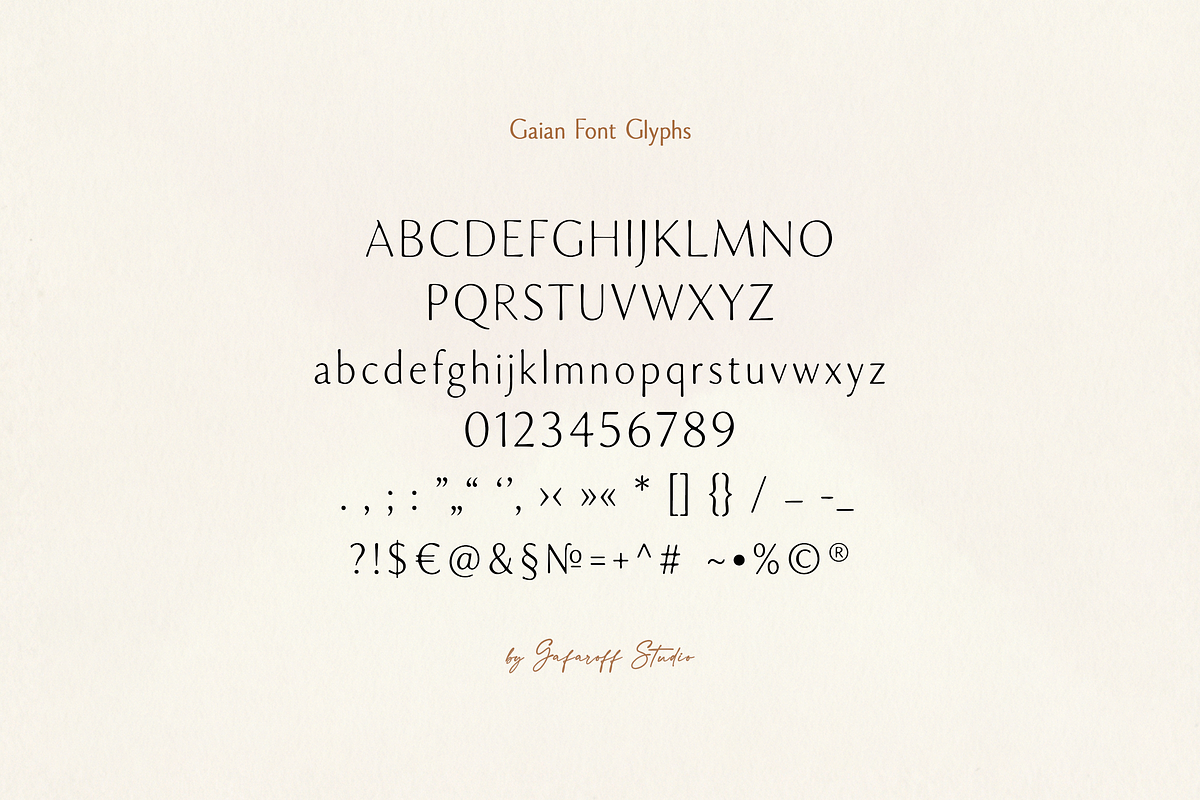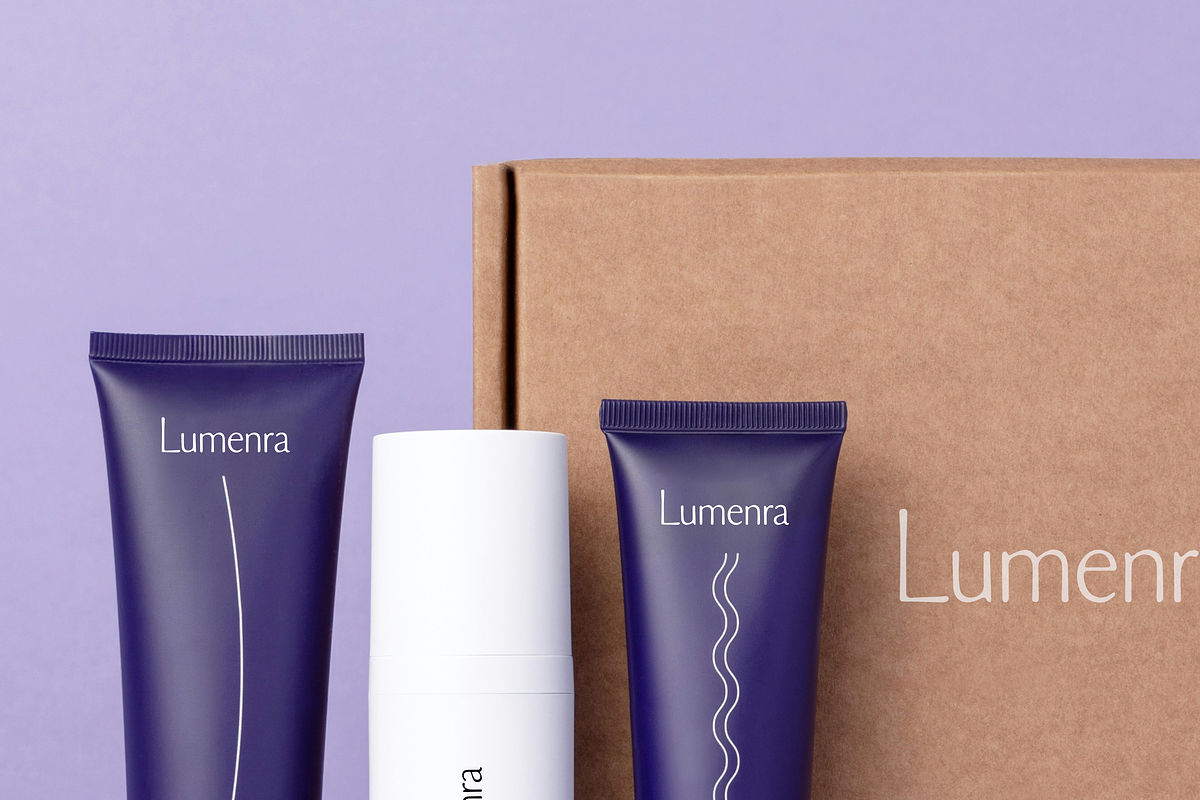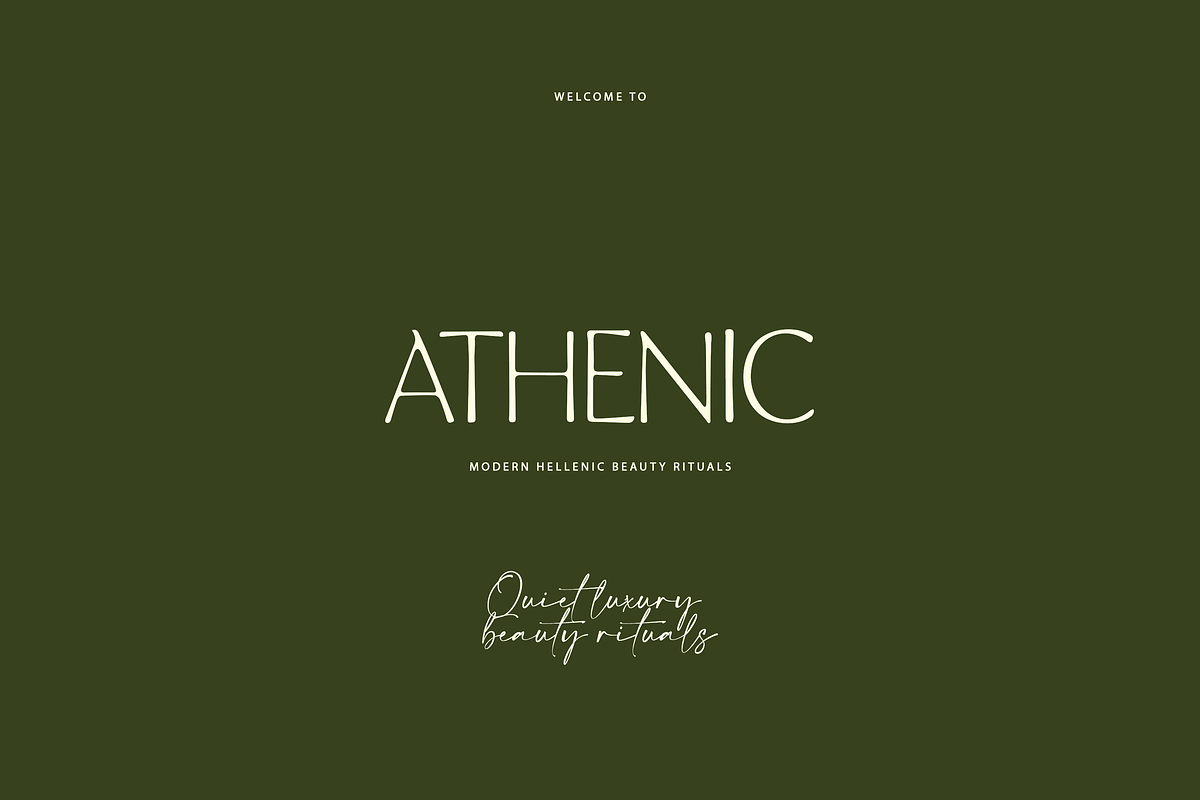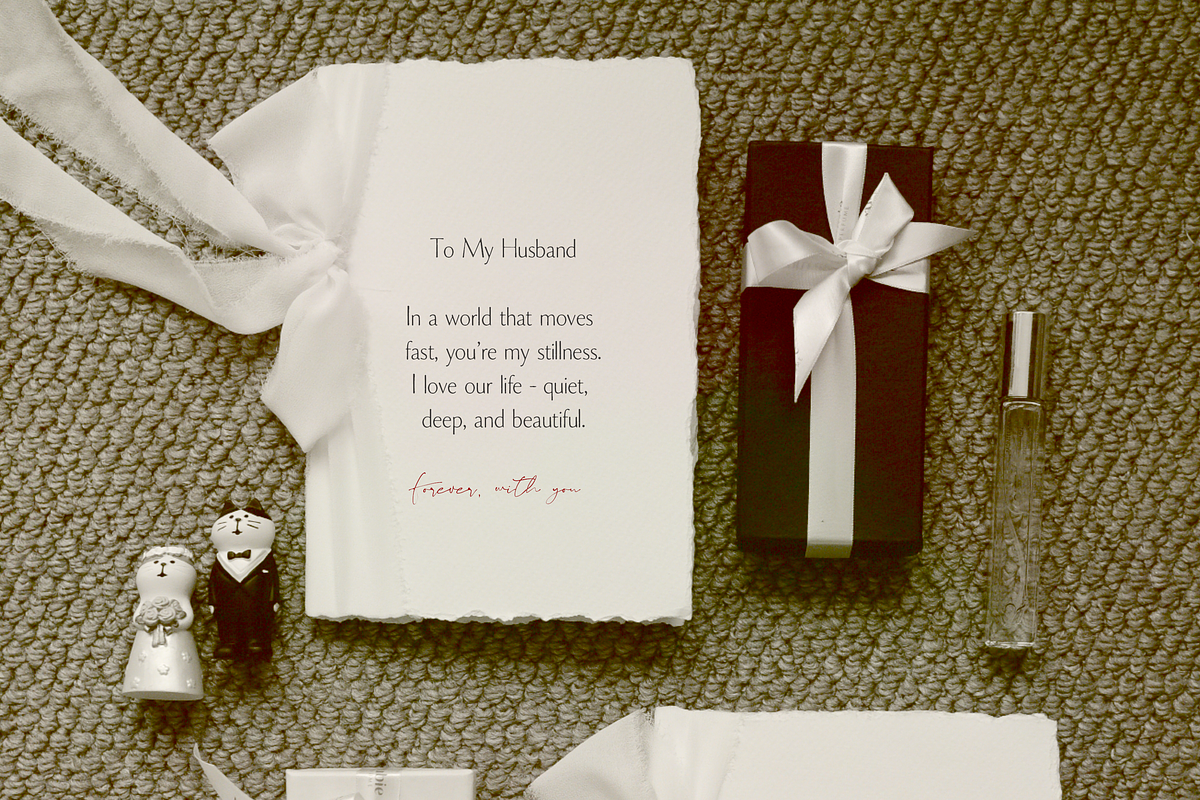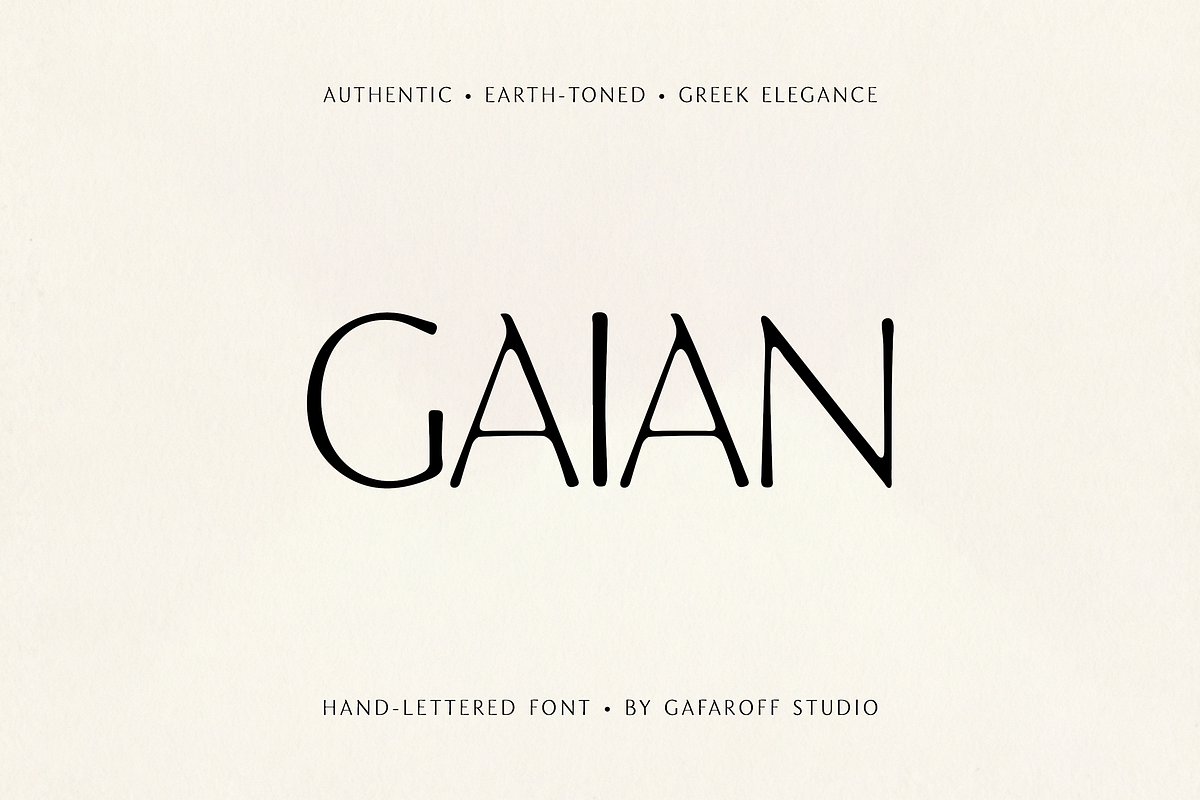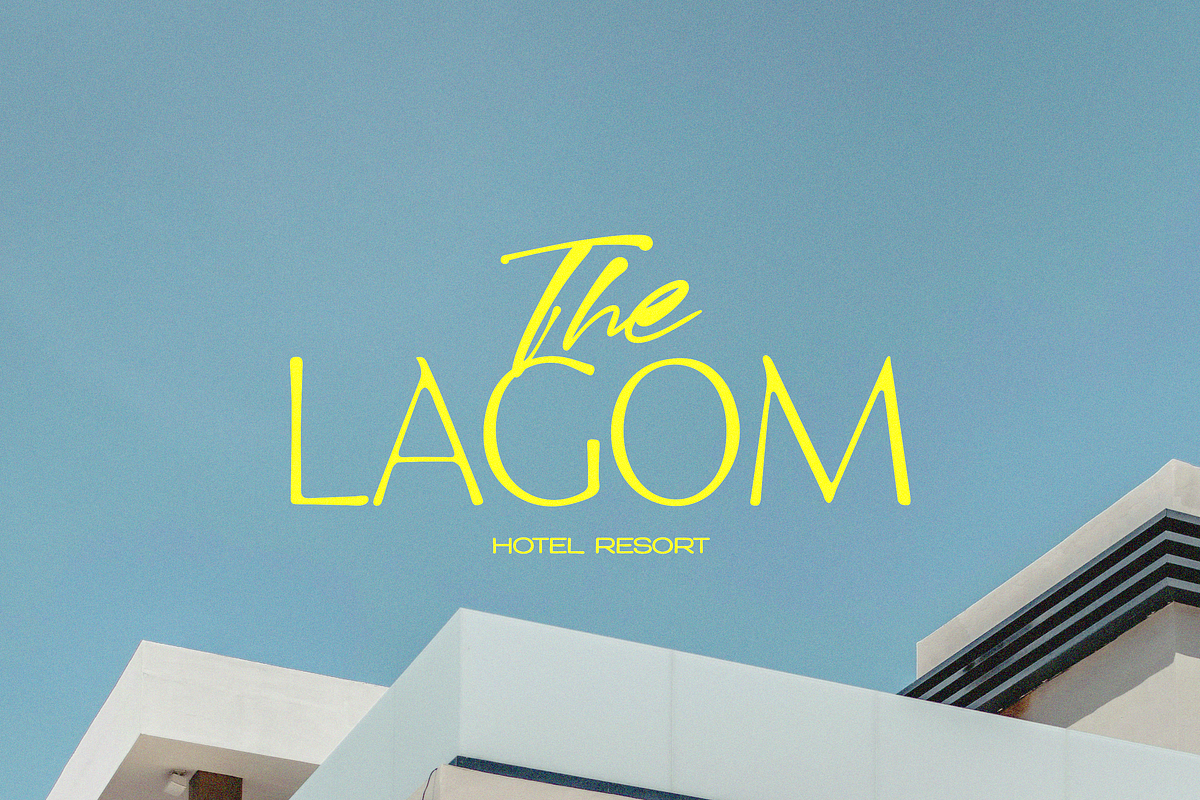
Gaian Font
Gaian is a refined hand-lettered display font inspired by authentic, earth-toned Mediterranean aesthetics and quiet Greek elegance. Its tall, sculptural letterforms and clean, minimalist rhythm create a look that feels luxurious, calm, and timeless - never loud, always elevated.